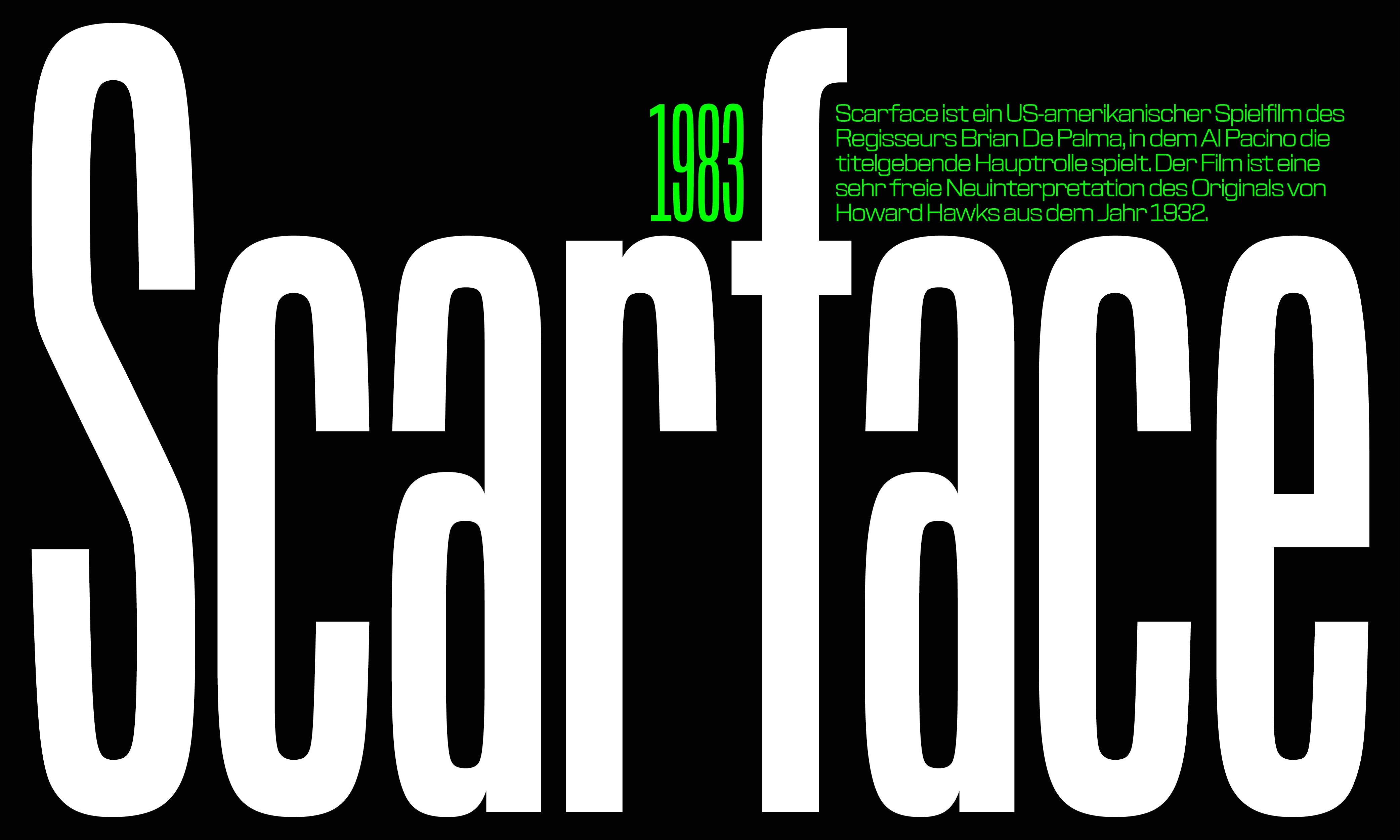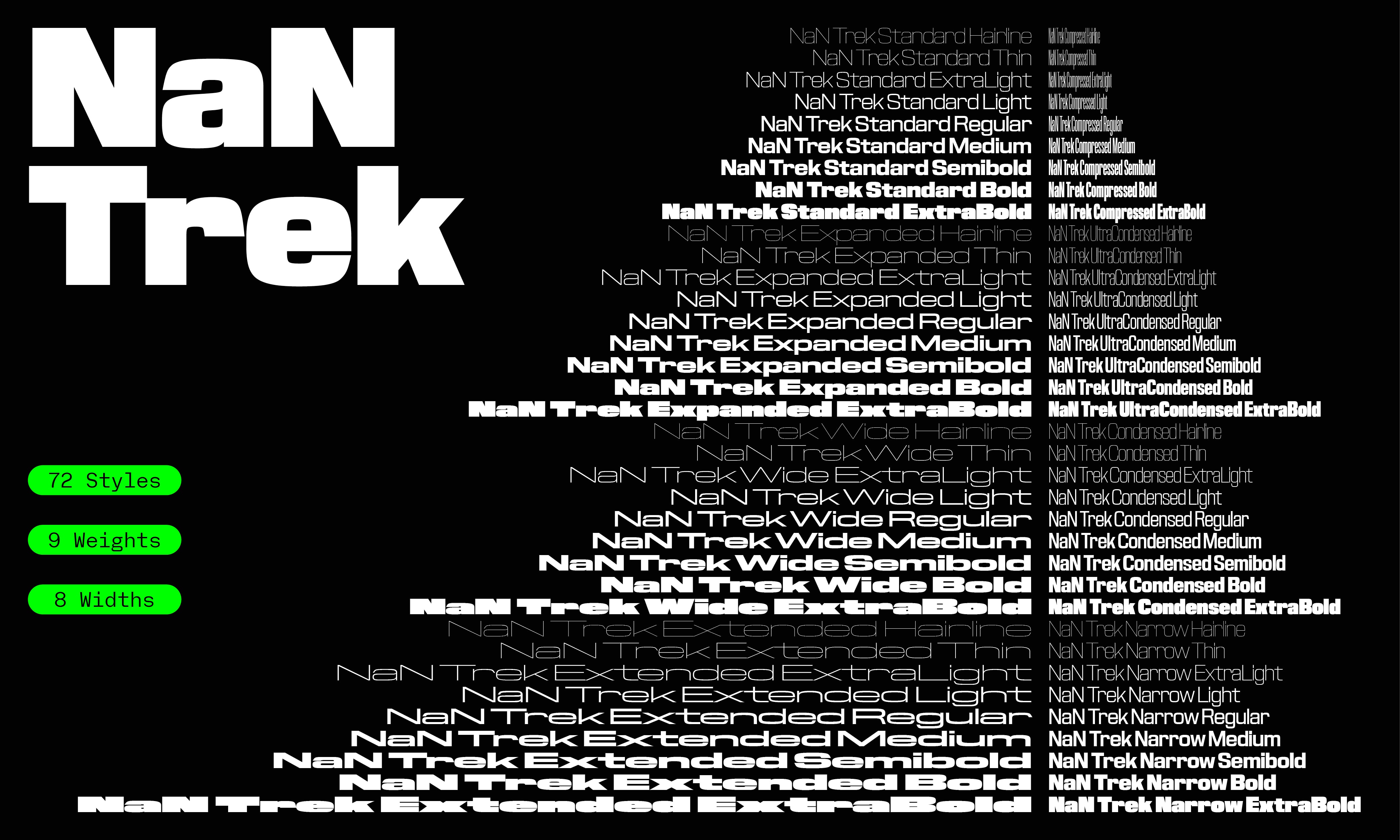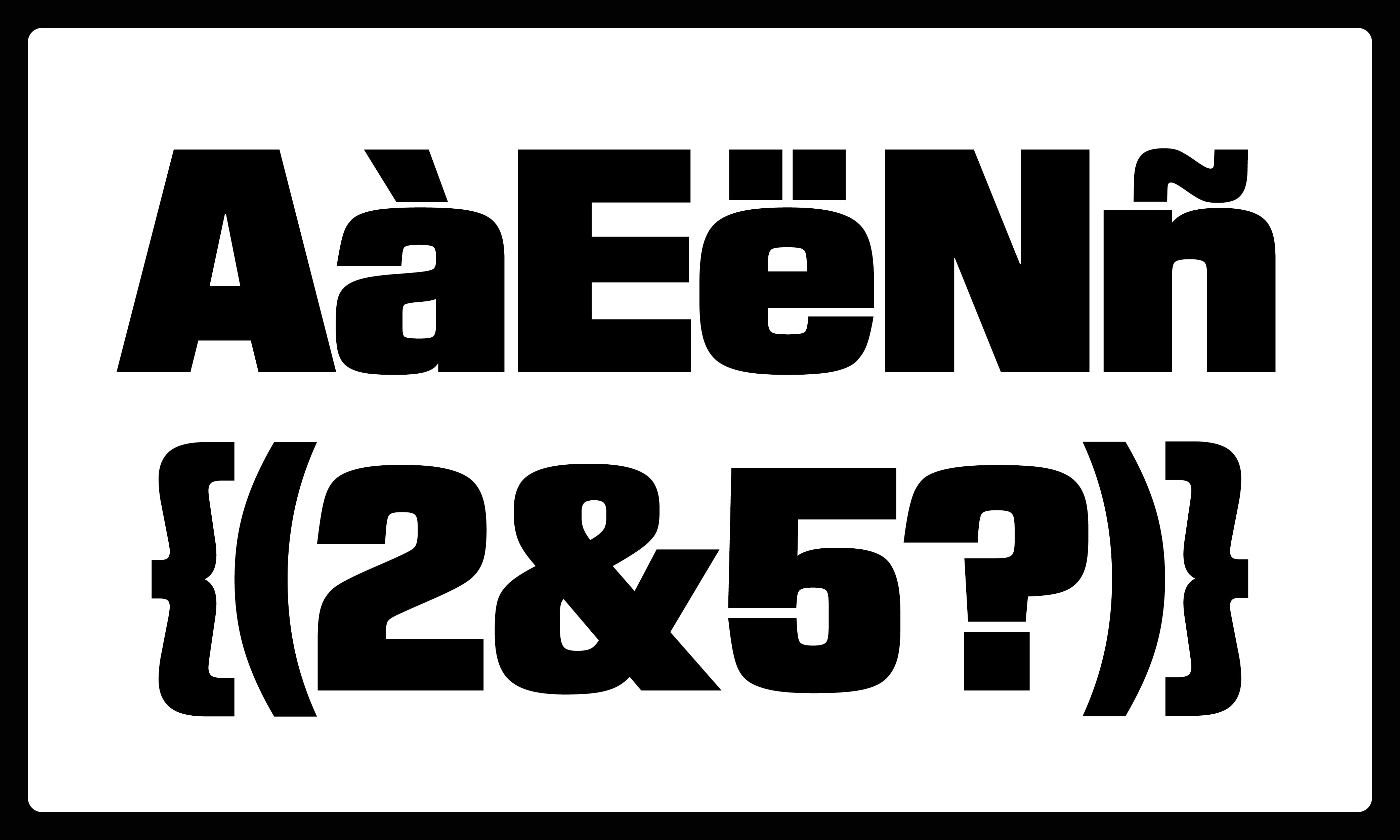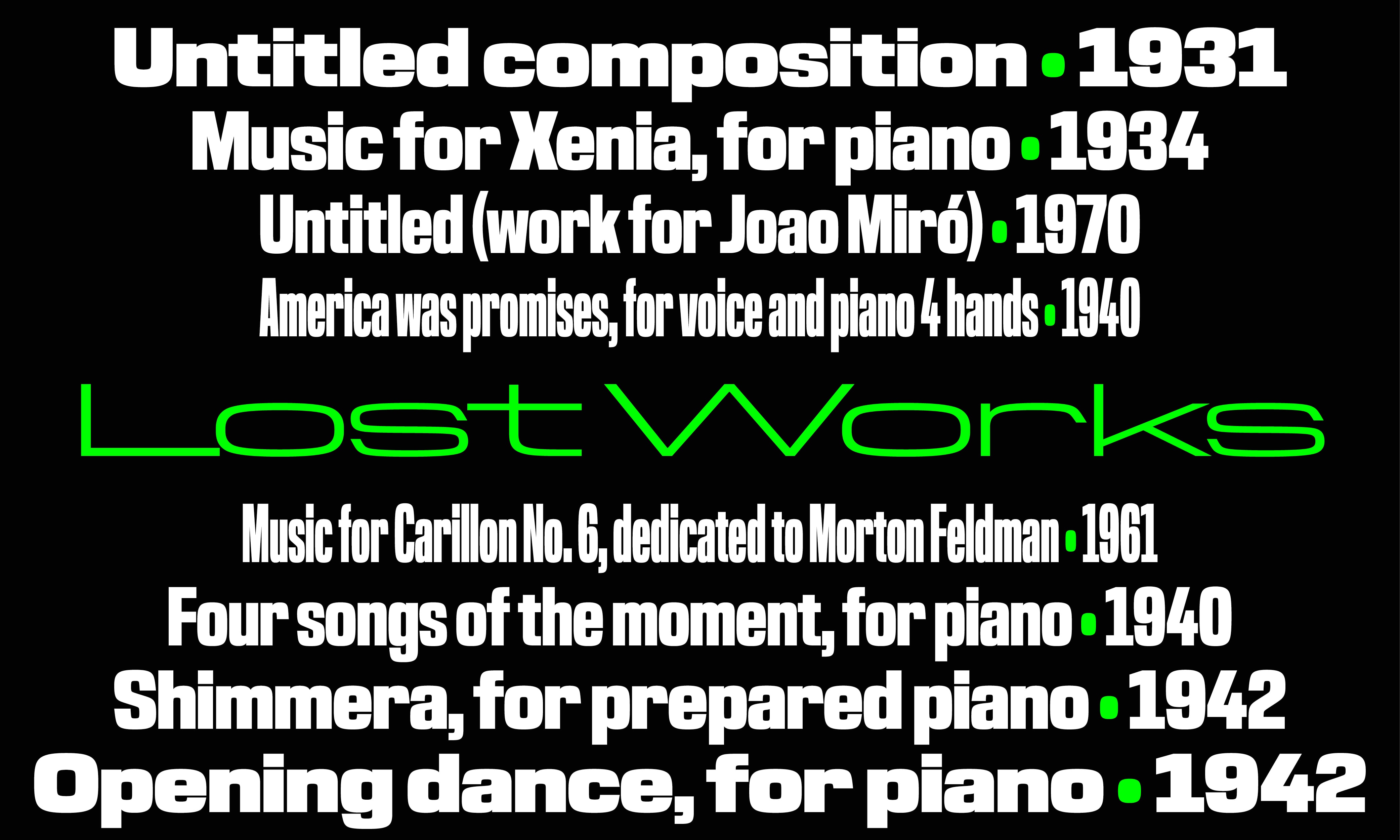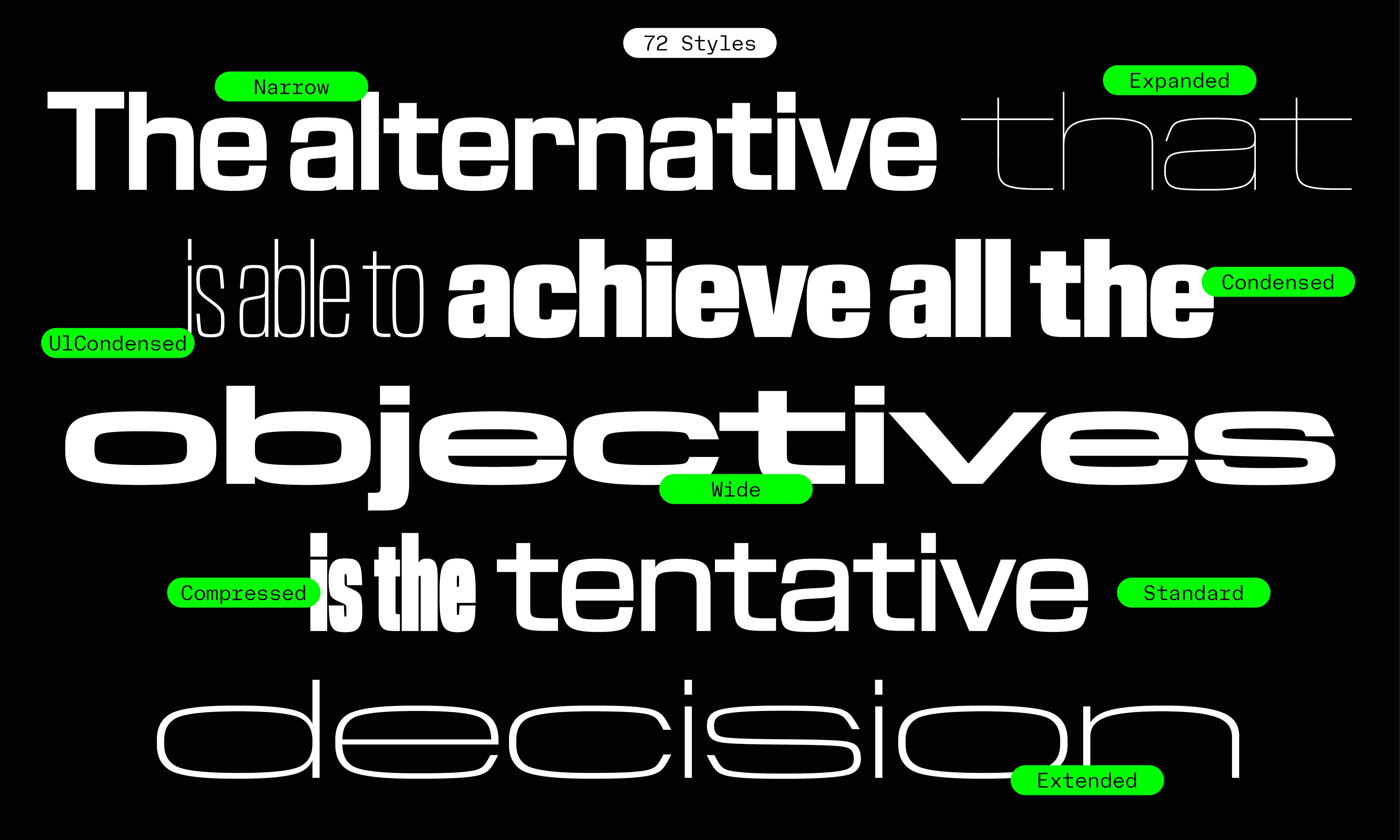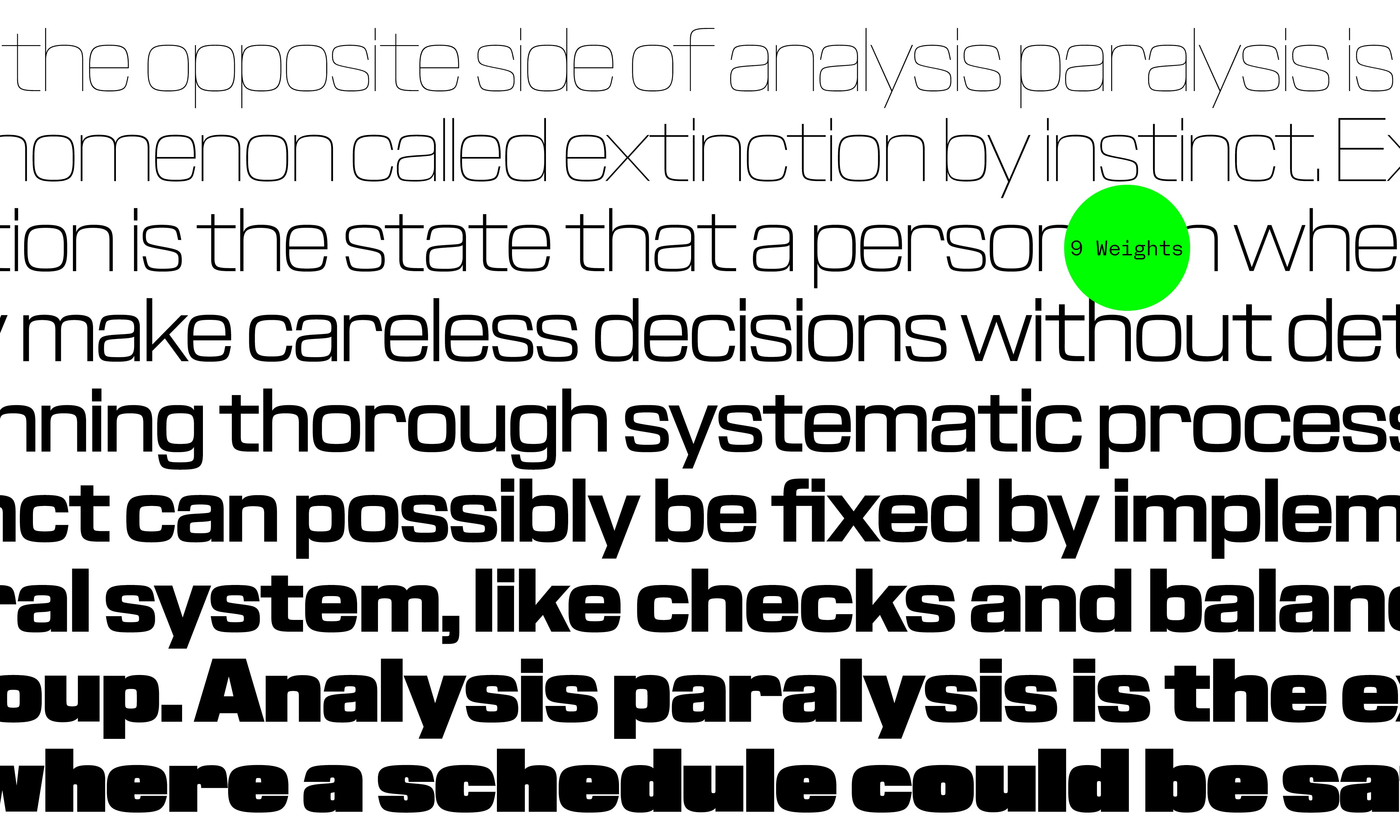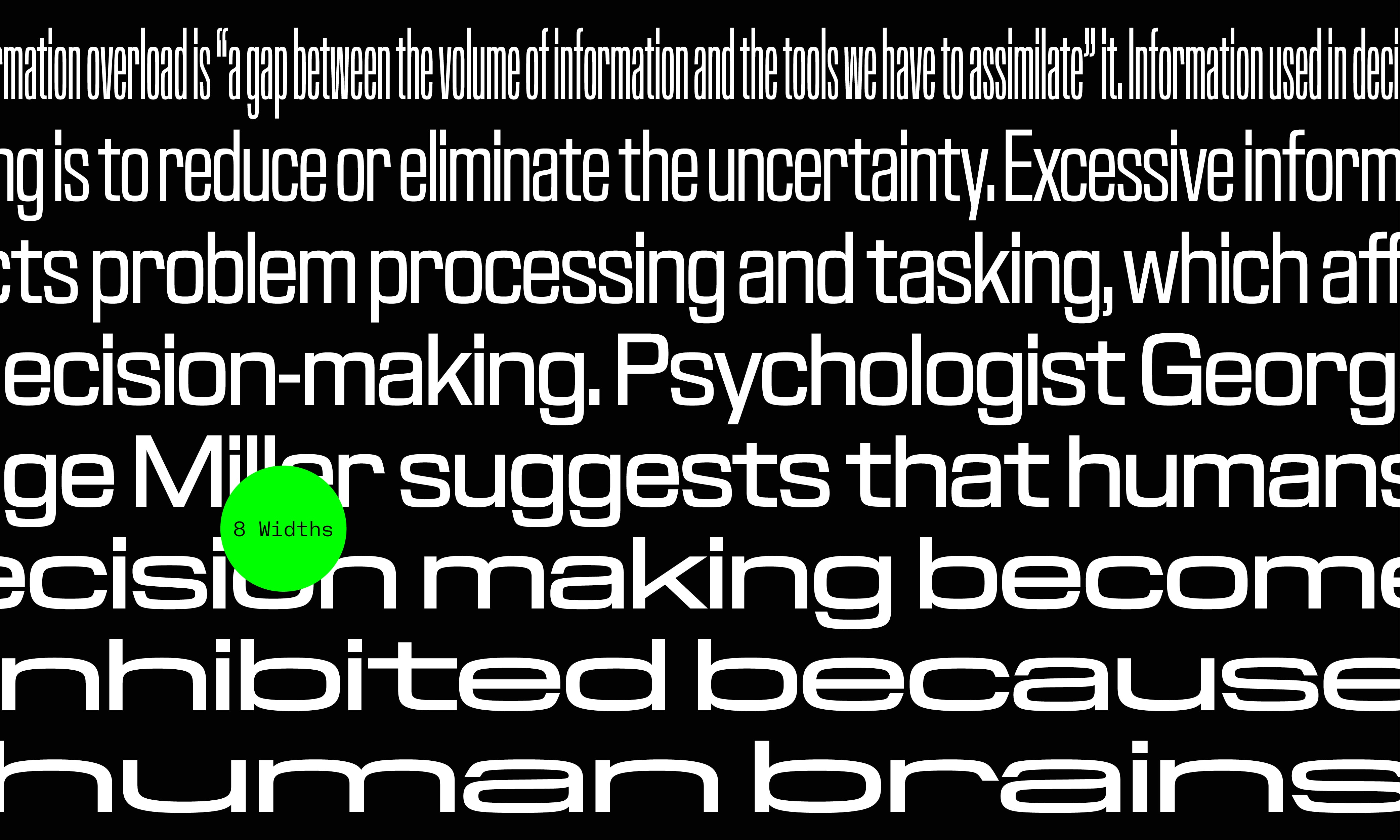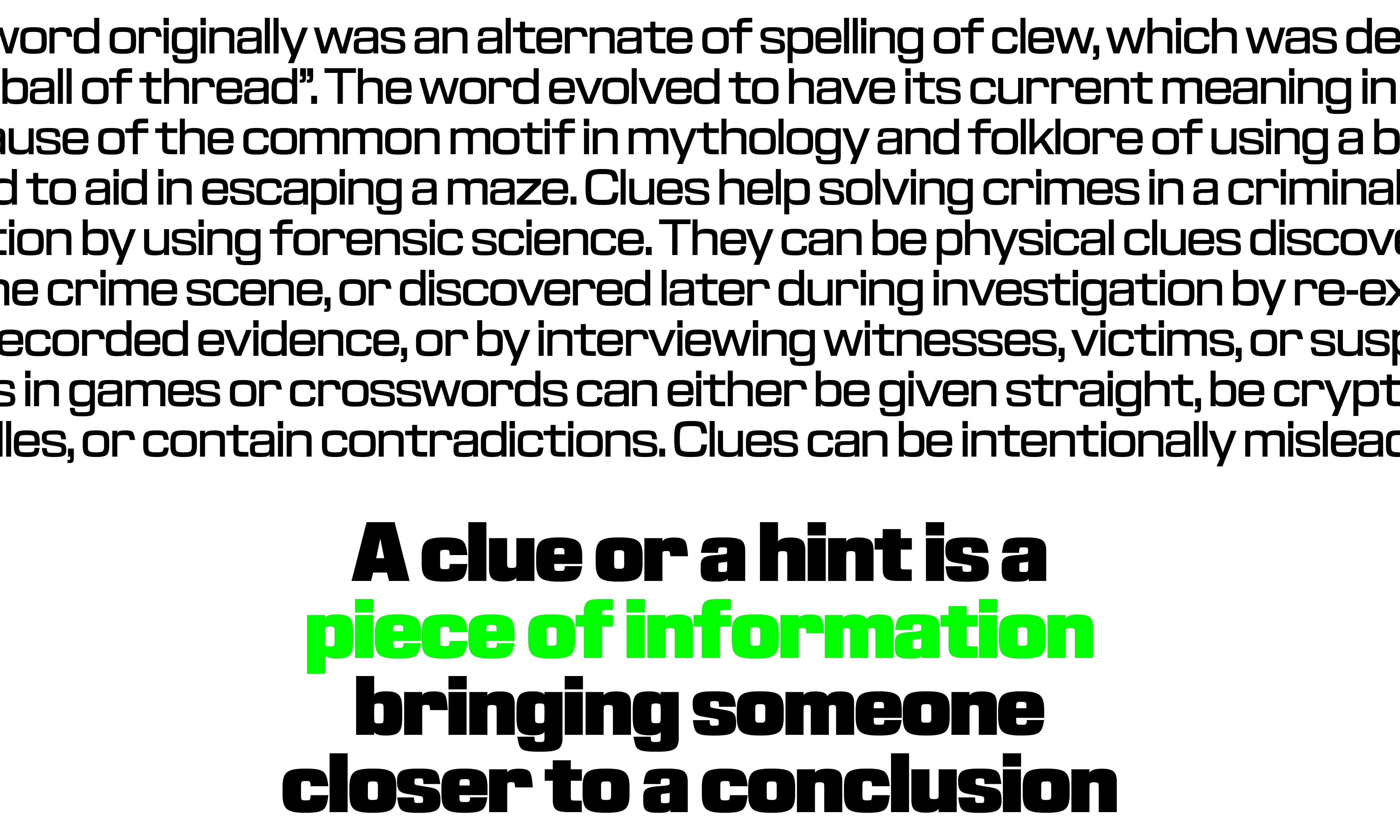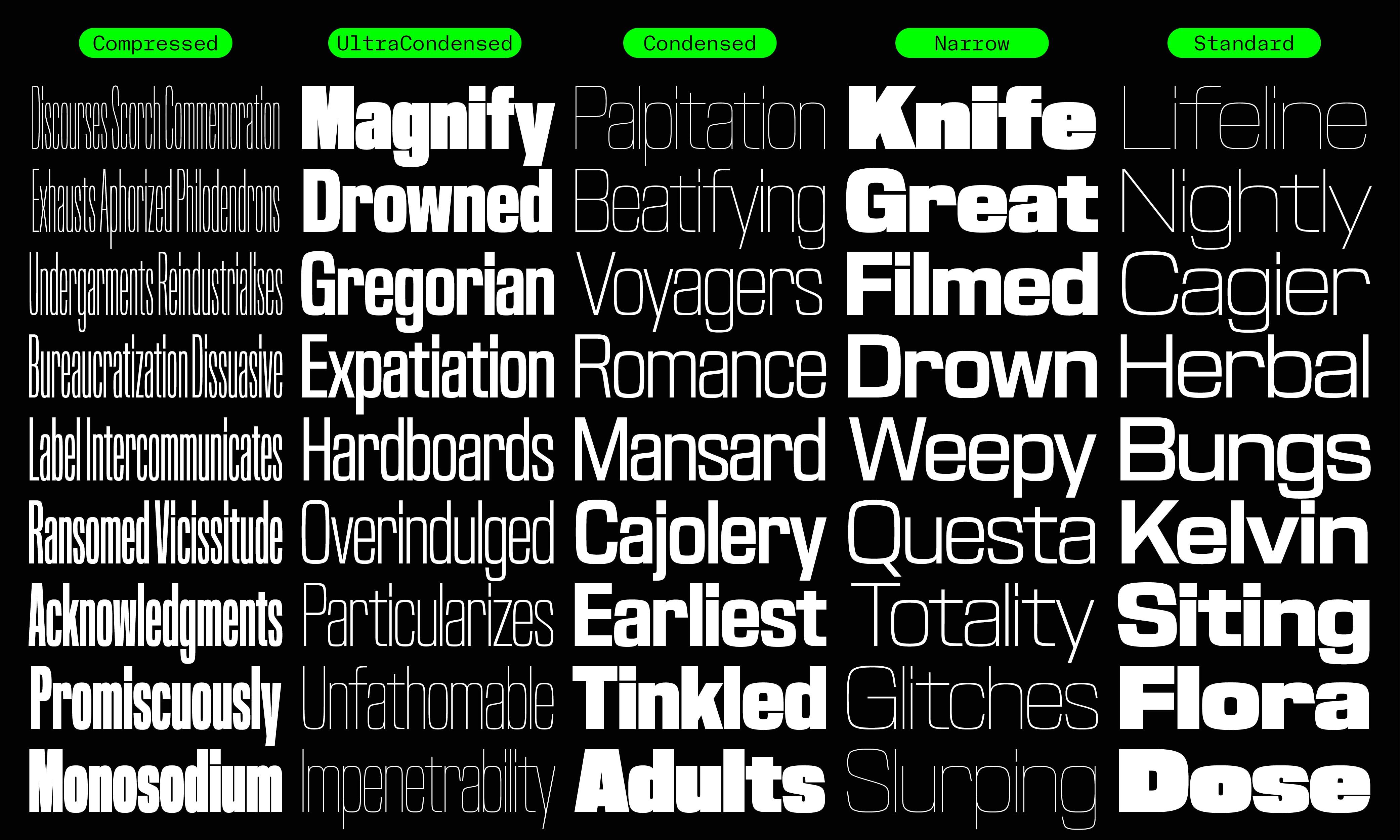
About NaN Trek
NaN Trek, the retro-futuristic sans serif with a healthy dose of early 2000’s techno label inspiration. Big boom boom from thin compressed to wide heavy.
Designed by NaN
NaN Team: Hugues Gentile, Fanny Hamelin, Fadhl Haqq, Léon Hugues, Jean-Baptiste Morizot, Luke Prowse